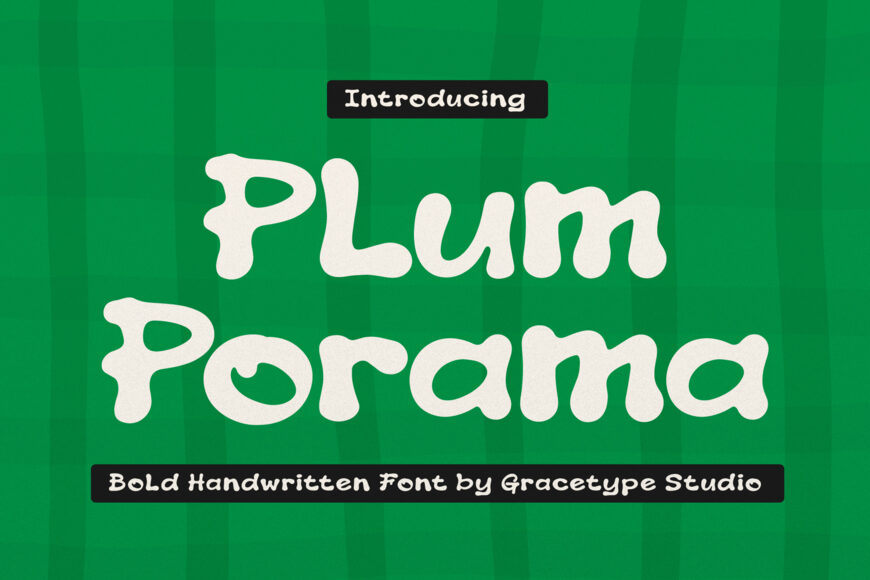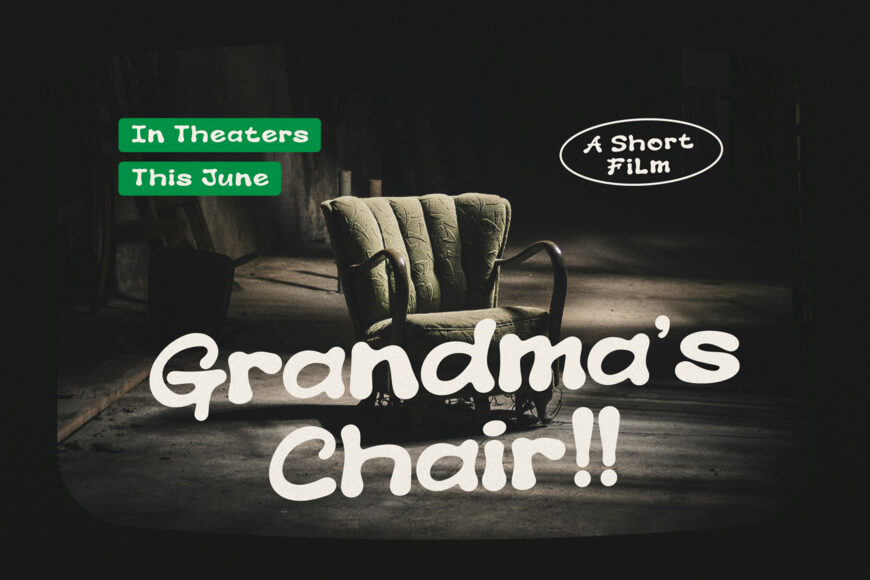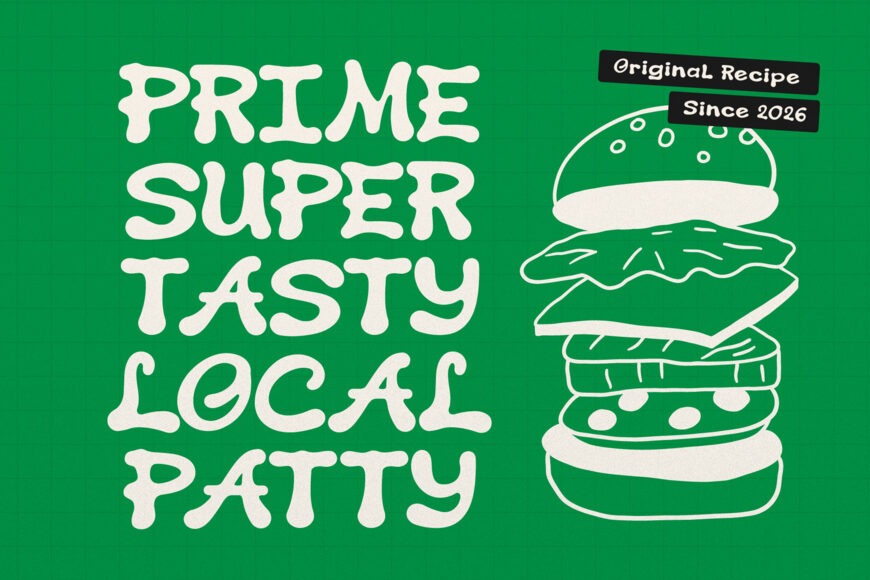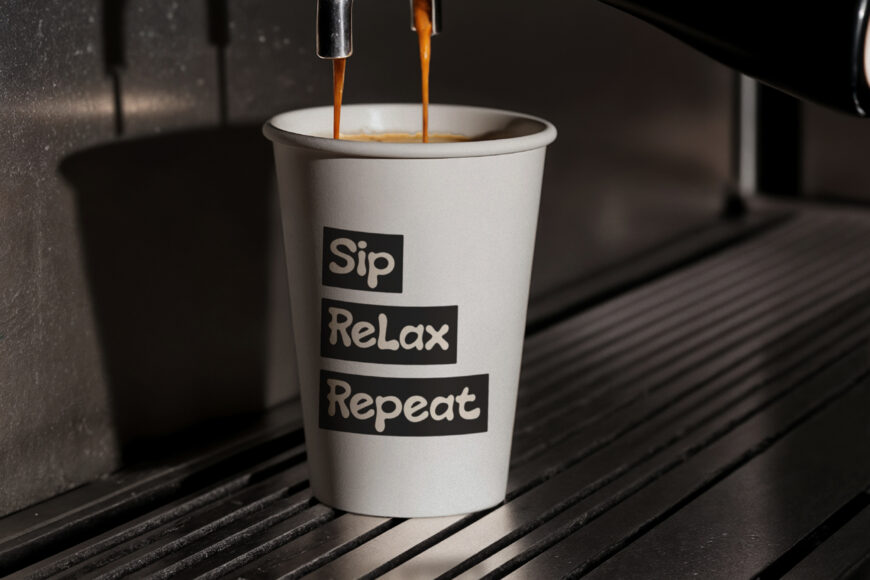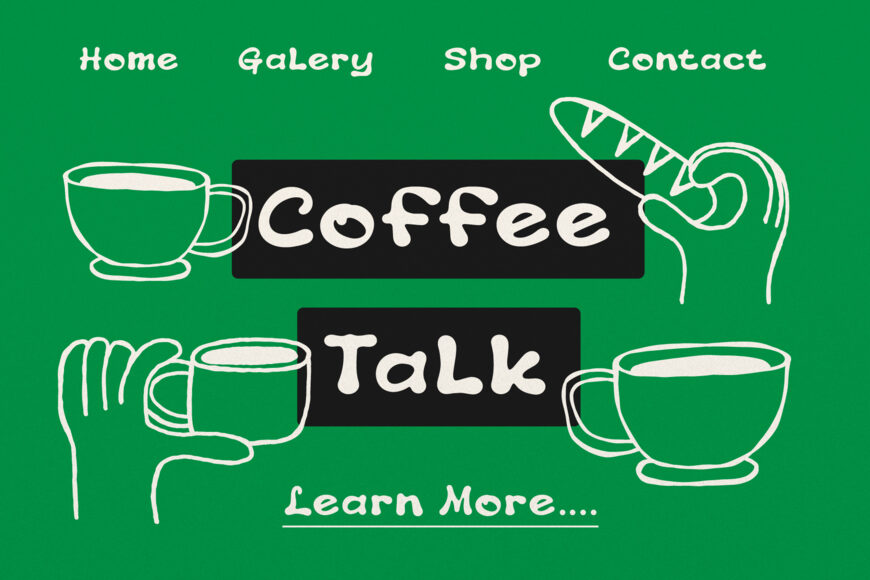
Add a dose of playful energy, quirky nostalgia, and bold handcrafted charm to your designs with PLUM PORAMA! This bold handwritten font features soft, organic wavy edges, chunky rounded letterforms, and fun, irregular proportions that give every word a bubbly, liquid-like movement.
Whether you’re working on groovy Y2K posters, children’s book titles, trendy sticker packs, food packaging, social media graphics, or custom Cricut and Silhouette vinyl craft projects, PLUM PORAMA commands attention with effortless, fun-loving style!